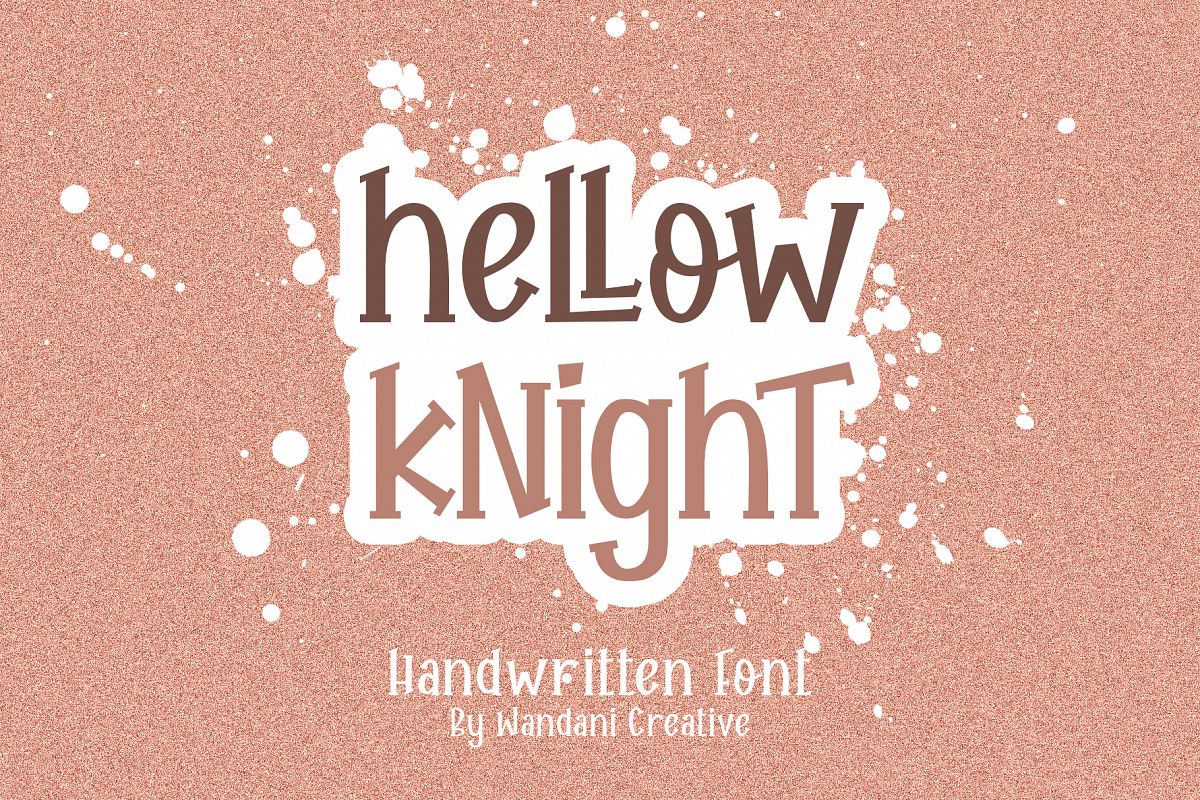
Hellow Knight // A Fun Handwritten Font
Hellow Knight
Hello Knight is designed to convey a pleasant impression, with a cute and unique shape, this font is perfect for typography for kids events or products, such as party invitations, gift messages, happy greetings, branding and more.